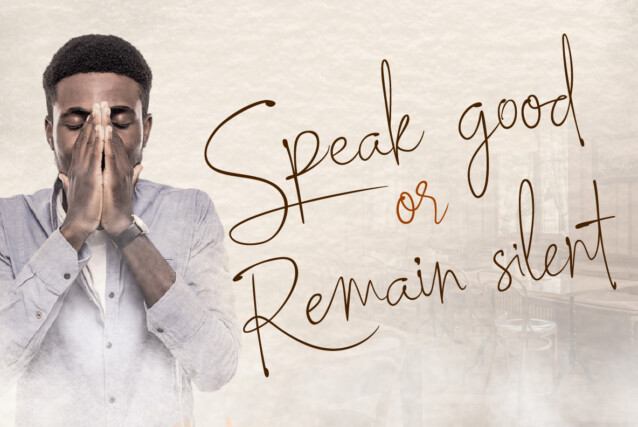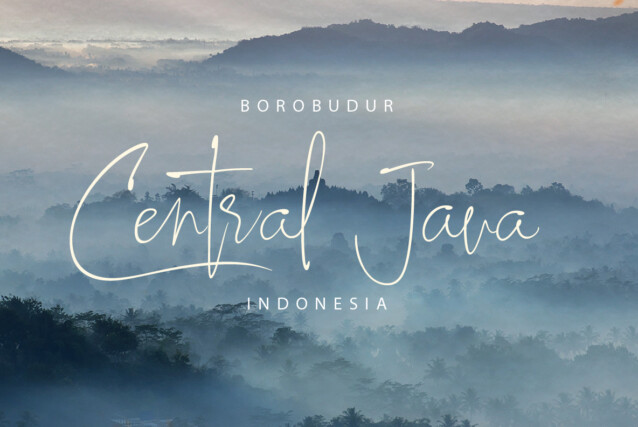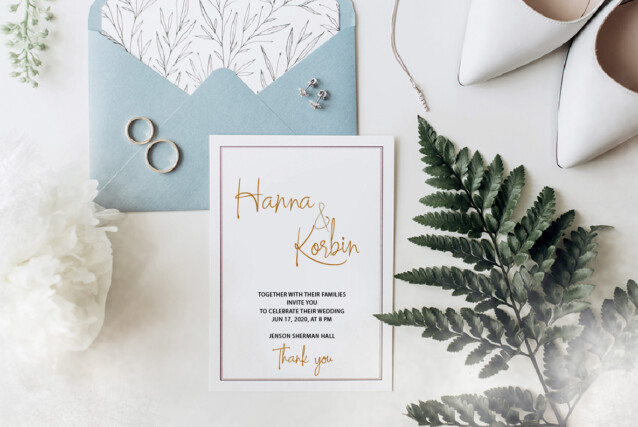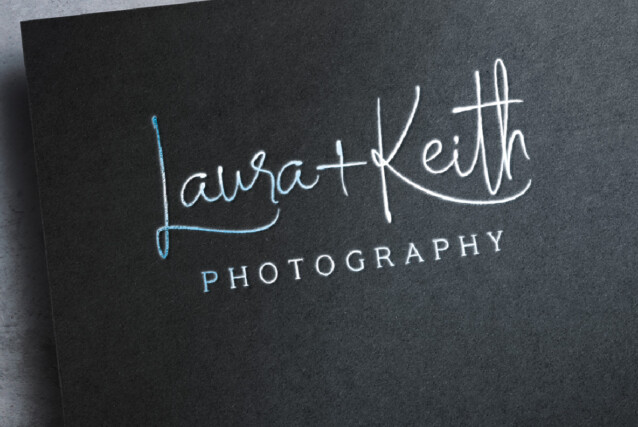
Resalaty Font
Resalaty Font is more than just a font; it’s a charming and trendy handwritten typeface that adds a touch of elegance to your creative projects. With its signature style, Resalaty font provides you with a versatile tool to craft stunning logos, eye-catching posters, enchanting wedding invitations, engaging blog posts, and captivating social media content. Its fashion-forward design ensures your text stands out with a distinct personality. Whether you’re working on apparel branding or any other project that requires a unique, handcrafted touch, Resalaty font has you covered. This font’s exquisite appeal will leave a lasting impression on your audience, making your designs truly unforgettable.